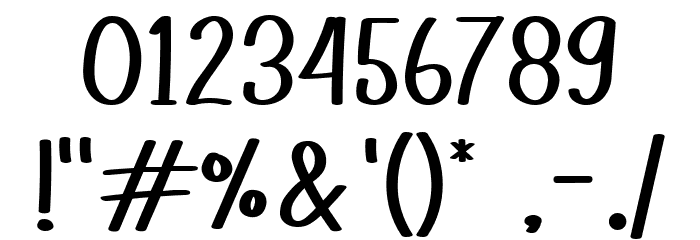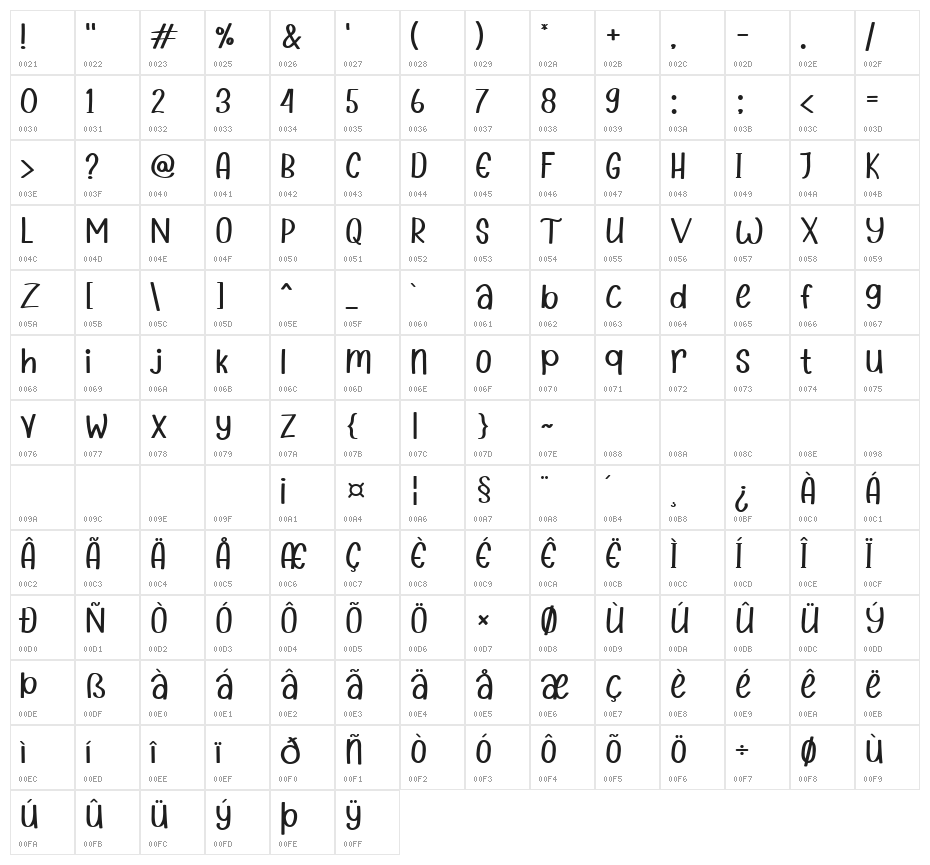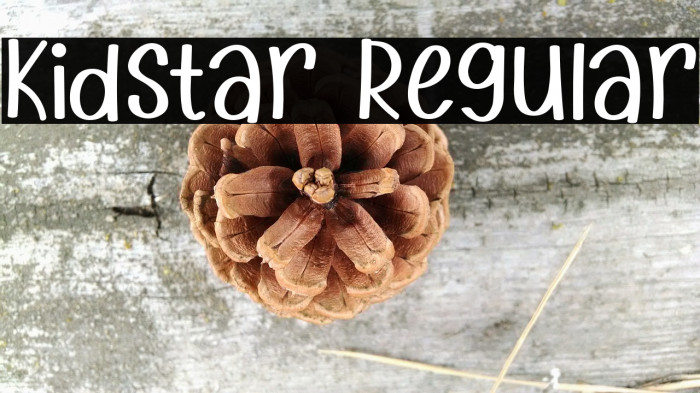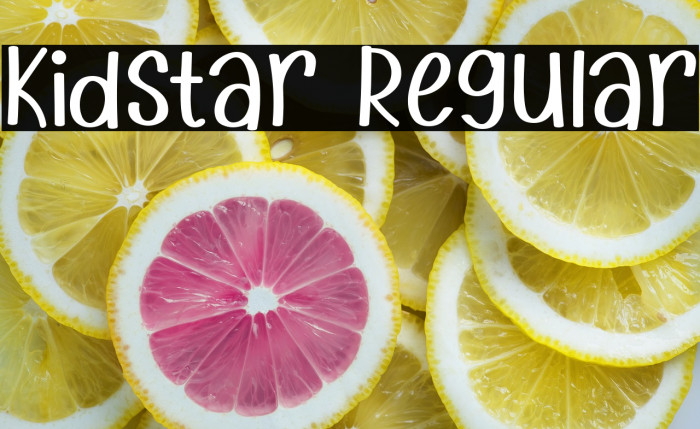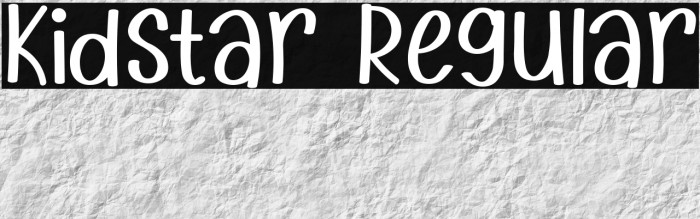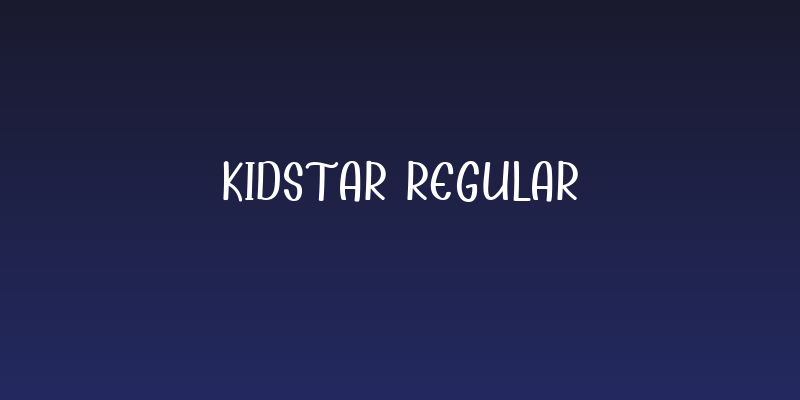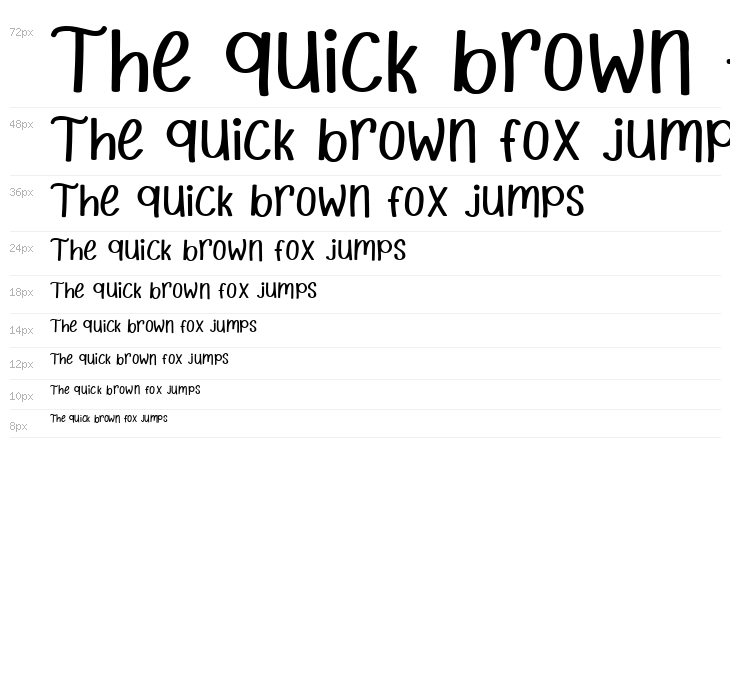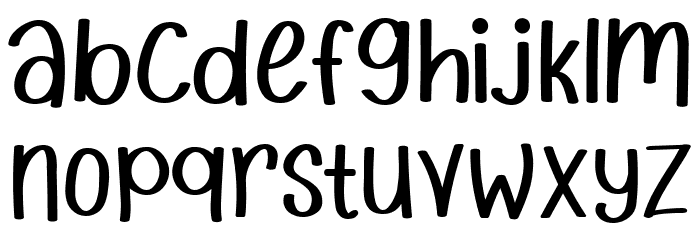
Kidstar Regular Font
Kidstar Regular Description
This playful and whimsical font features a handwritten style with a casual and friendly appearance. The letters are slightly rounded with a smooth flow, giving it a childlike charm. The uppercase and lowercase characters maintain a consistent style, with the uppercase letters being slightly taller and more pronounced. The numbers and special characters are designed to match the overall playful aesthetic, making them easy to read while maintaining a fun vibe. This font is perfect for projects that require a touch of creativity and lightheartedness, such as children's books, playful branding, or casual invitations.
| Proposed Projects | Ideal for children's books, playful branding, casual invitations, and creative projects. |